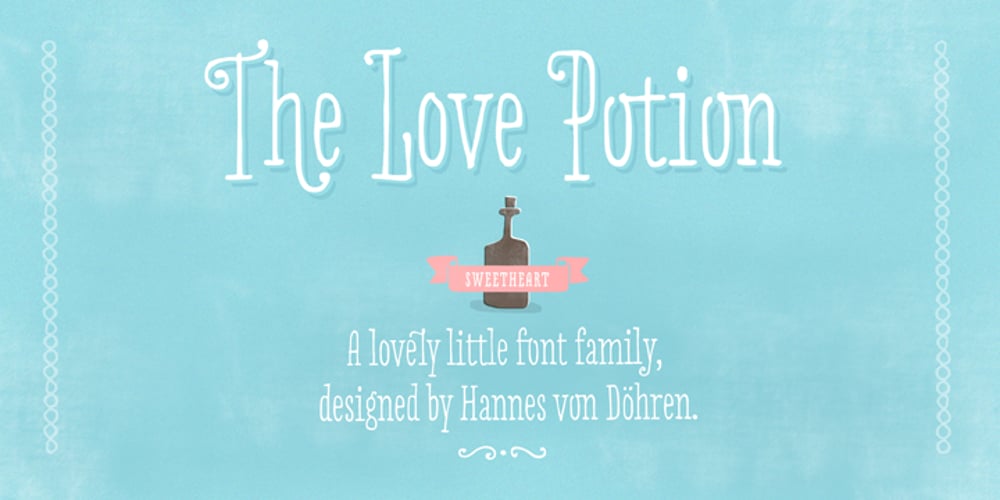
Love Potion Font Family was designed by Hannes von Döhren and published by HVD Fonts. Love Potion contains 3 styles and family package options. Hannes von Döhren created Love Potion. Three fonts (Regular/Bold/Ornaments) that include extravagant Ligatures, Swash Letters, Catchwords, Arrows, Borders and other little specials. The hand drawn serif type family is intended to be used in applications like: Food, Clothes, Living, Wedding stationery or basically everywhere where love is in the air… Love Potion is equipped for professional typography. As an exclusively OpenType release, these fonts have an extended character set to support Central and Eastern European as well as Western European languages. In addition to that the fonts contain Standard ligatures, Swash Letters, Catchwords, Arrows, Borders and much more.